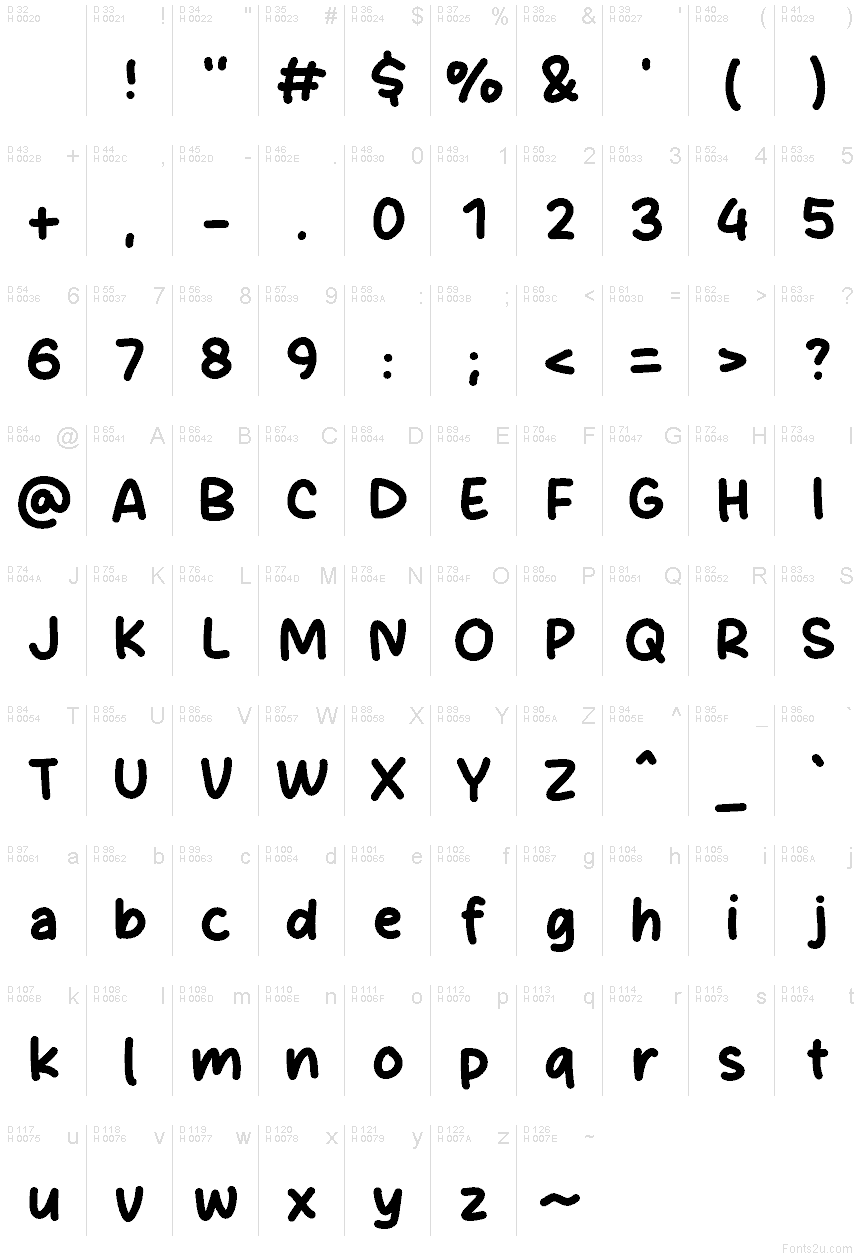
Candy Season
Candy Season font by Origin Type is a sweet handwritten font with rounded and smooth shapes. Its characters feature a cute, modern, casual, and friendly appearance. This approachable and whimsical typeface is easy to read, versatile, and impactful whether used in small or larger sizes in both print and digital projects.
Use this free handwritten font to establish a playful mood in greeting cards, invitations, CRMs (customer relationship management), YouTube thumbnails, social media channels design projects (Instagram/Tiktok/Facebook), educational purposes projects (Kindergarten posters/postcards for example), or food/candy packaging/dusting/repackaging/branding.